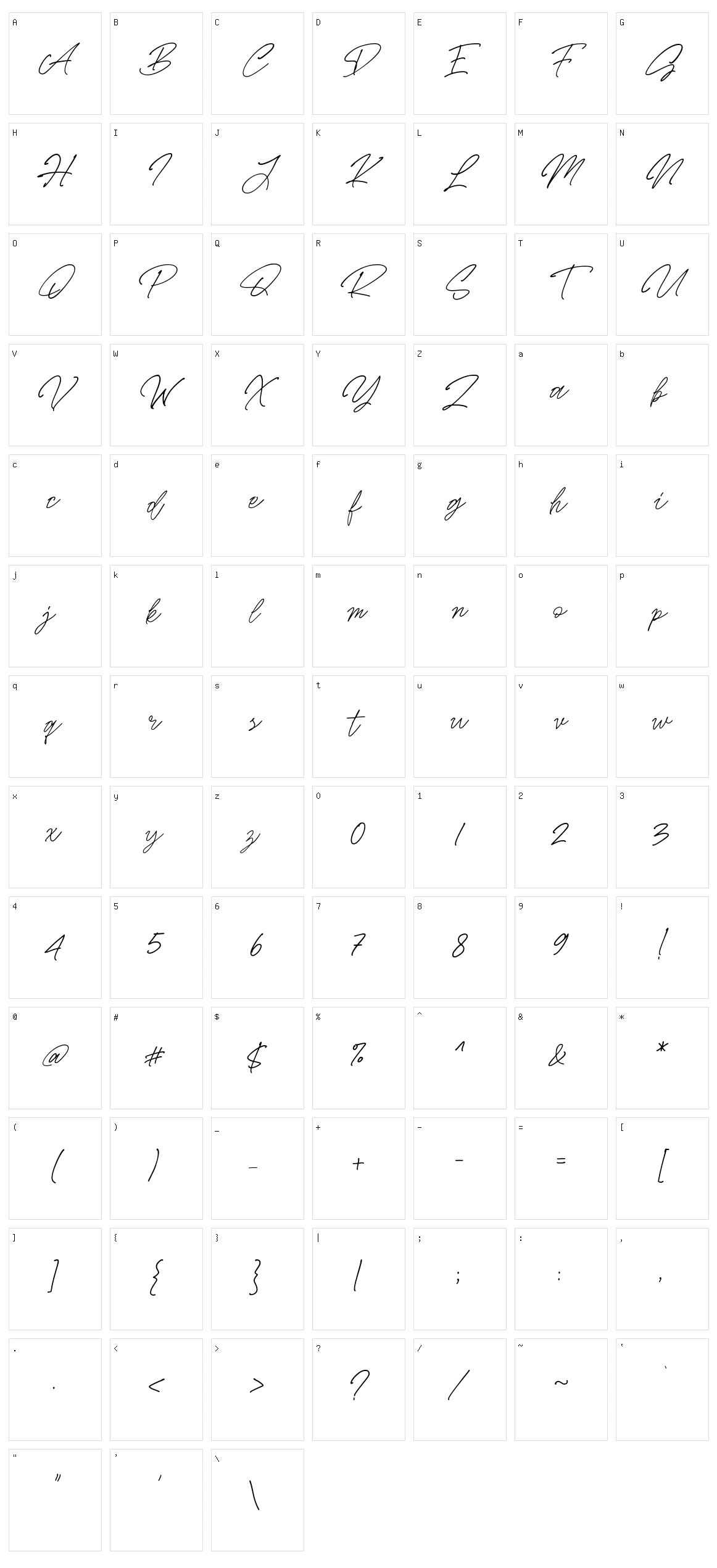
The free font Masterline is carefully designed by Weape Studio, showcasing a thoughtful balance of creativity and usability and falls under the Script font style. When you download the ZIP file, it contains only 169.91 KB of font files, making it lightweight and quick to download. Please review the license details below to understand permitted usage and distribution rights. If license information is not available, we recommend using this font for personal projects only or contacting the author directly for commercial usage permissions.
Masterline Signature Script - by Weape Design